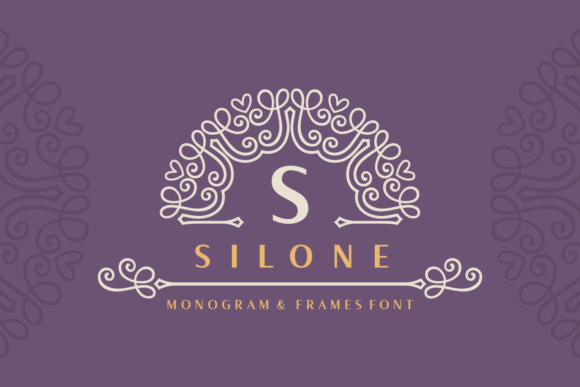
Introducing Silone Font - A Timeless Monogram Display Masterpiece
Unleash the captivating allure of Silone Font, a stunning display font that exudes both charm and elegance. Inspired by the enduring legacy of classic calligraphy, Silone gracefully blends the beauty of traditional penmanship with a contemporary twist. Its straight baseline, smooth lines, and gorgeous glyphs create a visual symphony that dances across your designs.
With Silone Font, you'll elevate your creative projects to new heights. Its versatile nature makes it the perfect choice for a wide range of applications, from branding and headings to wedding invitations and logos. Its stunning alternates add an extra touch of sophistication, allowing you to create truly unique and eye-catching designs.
Silone Font - Where Tradition Meets Modernity
Silone Font effortlessly captures the essence of timeless elegance while embracing the spirit of modernity. Its impeccable craftsmanship shines through in every letterform, ensuring that your designs exude a sense of sophistication and luxury. Whether you're creating a captivating logo, designing an unforgettable invitation, or adding a touch of charm to your branding, Silone Font is your perfect companion.
Experience the Beauty of Silone Font
Immerse yourself in the world of Silone Font and discover a font that not only elevates your designs but also stirs emotions. Its enchanting curves and delicate details evoke a sense of nostalgia and romance, while its contemporary touches keep your designs firmly rooted in the present. With Silone Font, you'll create designs that resonate with your audience, leaving a lasting impression that lingers in their minds.
Unleash Your Creativity with Silone Font
Silone Font is more than just a font; it's an open invitation to unleash your creativity and explore endless design possibilities. Its versatility empowers you to create designs that are as unique as your imagination. Whether you're a seasoned designer or just starting out, Silone Font will be your trusted ally, helping you bring your visions to life with ease and precision.
Embrace the Elegance of Silone Font
Silone Font is the epitome of elegance, a font that transforms ordinary designs into extraordinary masterpieces. Its timeless beauty and modern touches combine to create a font that is both classic and contemporary. With Silone Font, you'll create designs that stand the test of time, leaving a lasting legacy of sophistication and refinement.